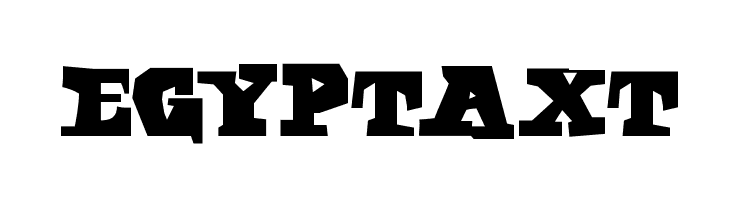
A bold, slab serif font with a strong, commanding presence.
An elegant, flowing script font with decorative swashes and loops.
An elegant, cursive font with fluid strokes and a sophisticated style.
An elegant script font with flowing, cursive letterforms and decorative swashes.
今のトップフォントは?
は、クリーンな造形と広い適用範囲で支持を集めています。 ブランディングからランディングページ、ポスターまで活躍します。
ロゴで人気のフォントは?
幾何学系の サンセリフ(例: Poppins、Gotham 系のファミリー)は、スケーラブルでクリーンな印象に最適。 親しみやすさを出すなら スクリプト や手書き系も定番です。 見出しは力強く、本文はニュートラルに──この組み合わせが認知とバランスを高めます。
人気リストはどのくらいの頻度で更新される?
ダウンロード数やエンゲージメントに基づき定期的に更新します。 こまめにチェックして、次に流行るフォントを先取りしましょう。